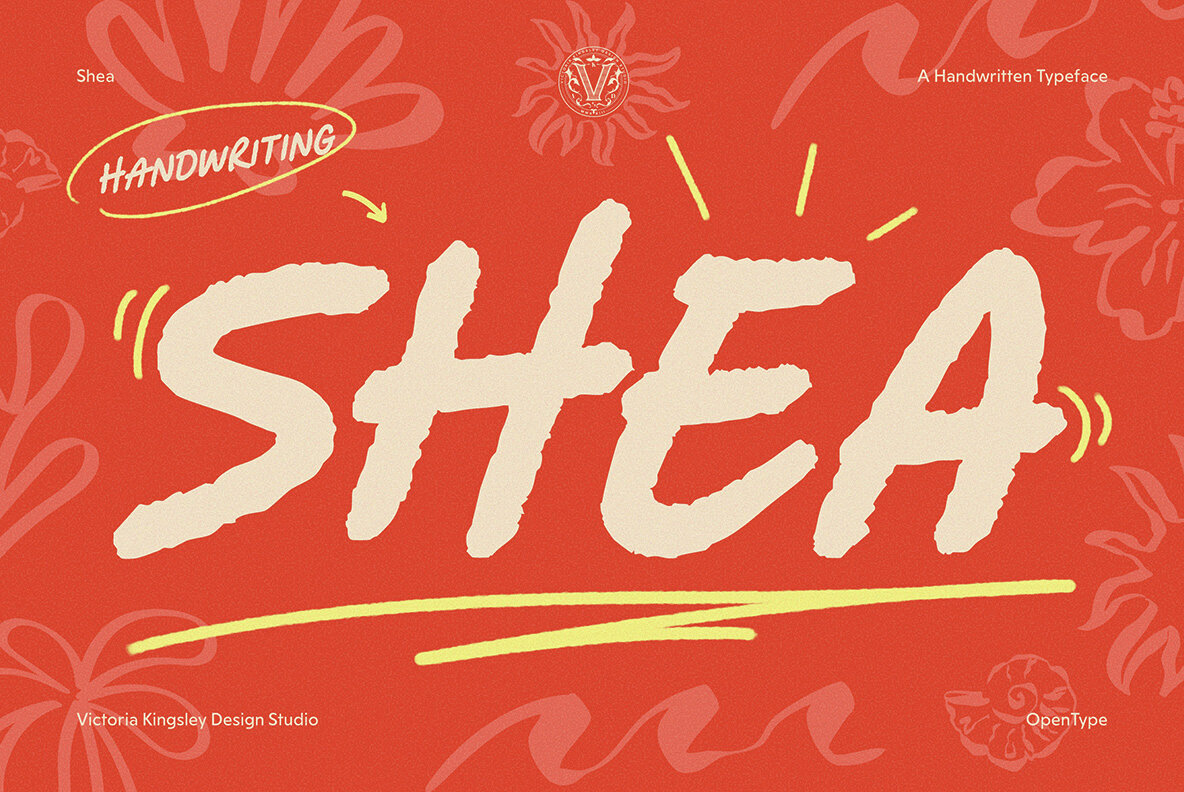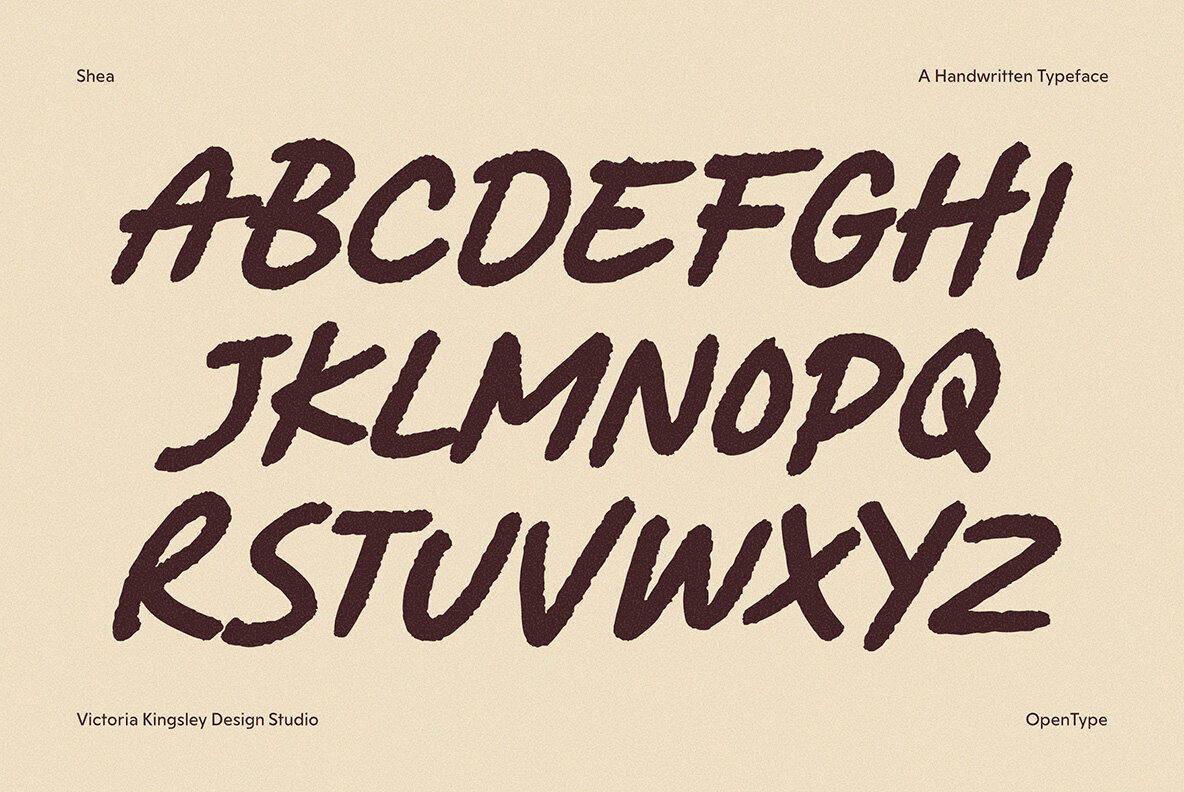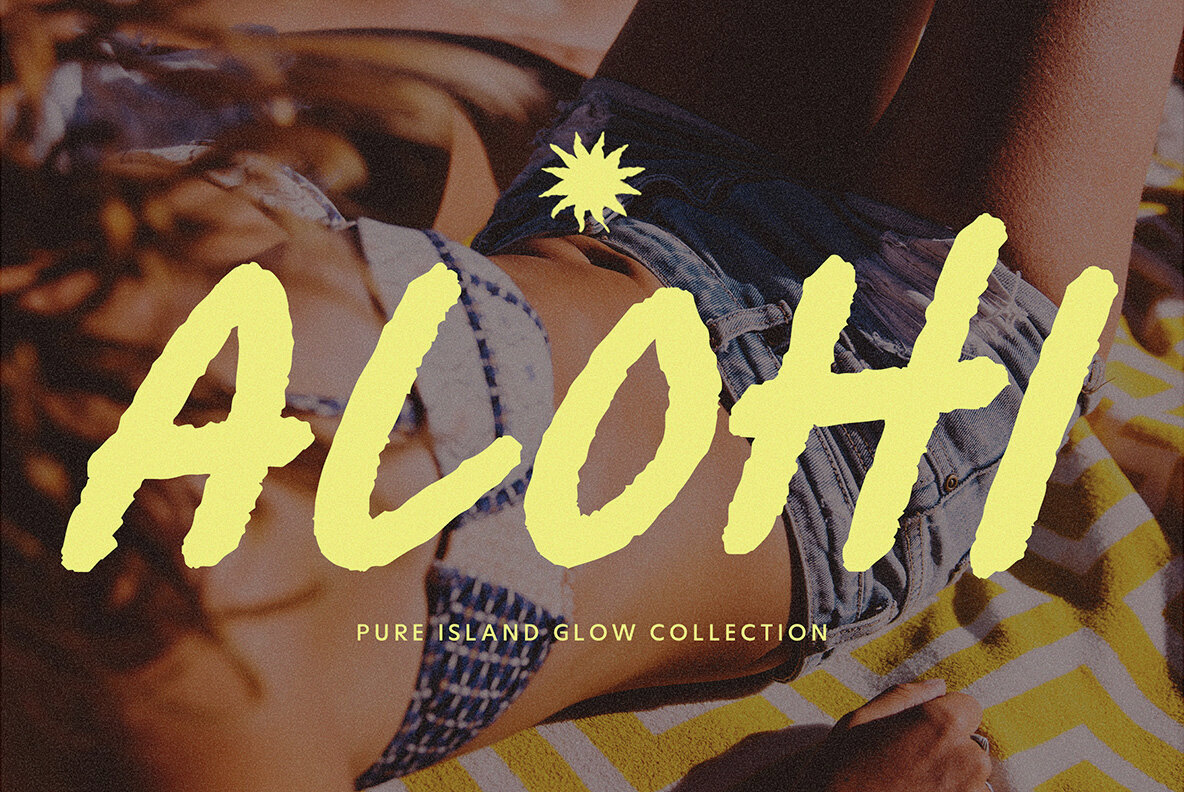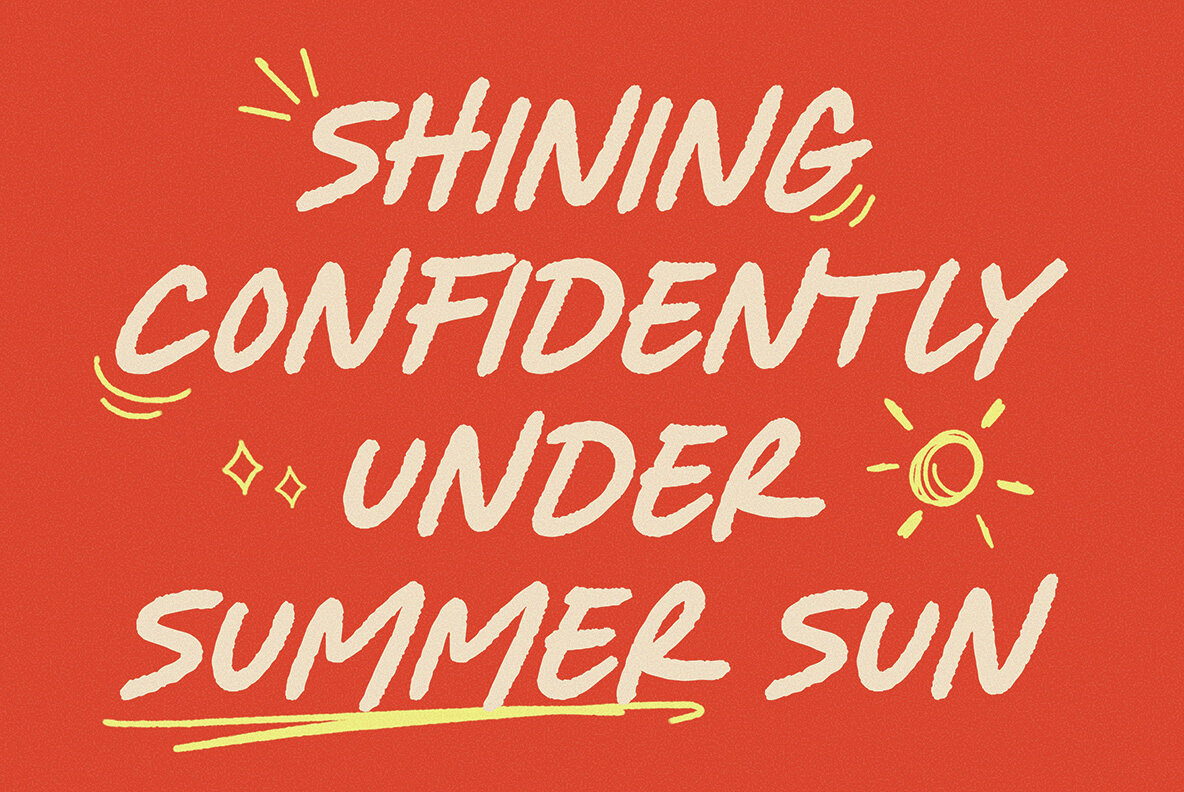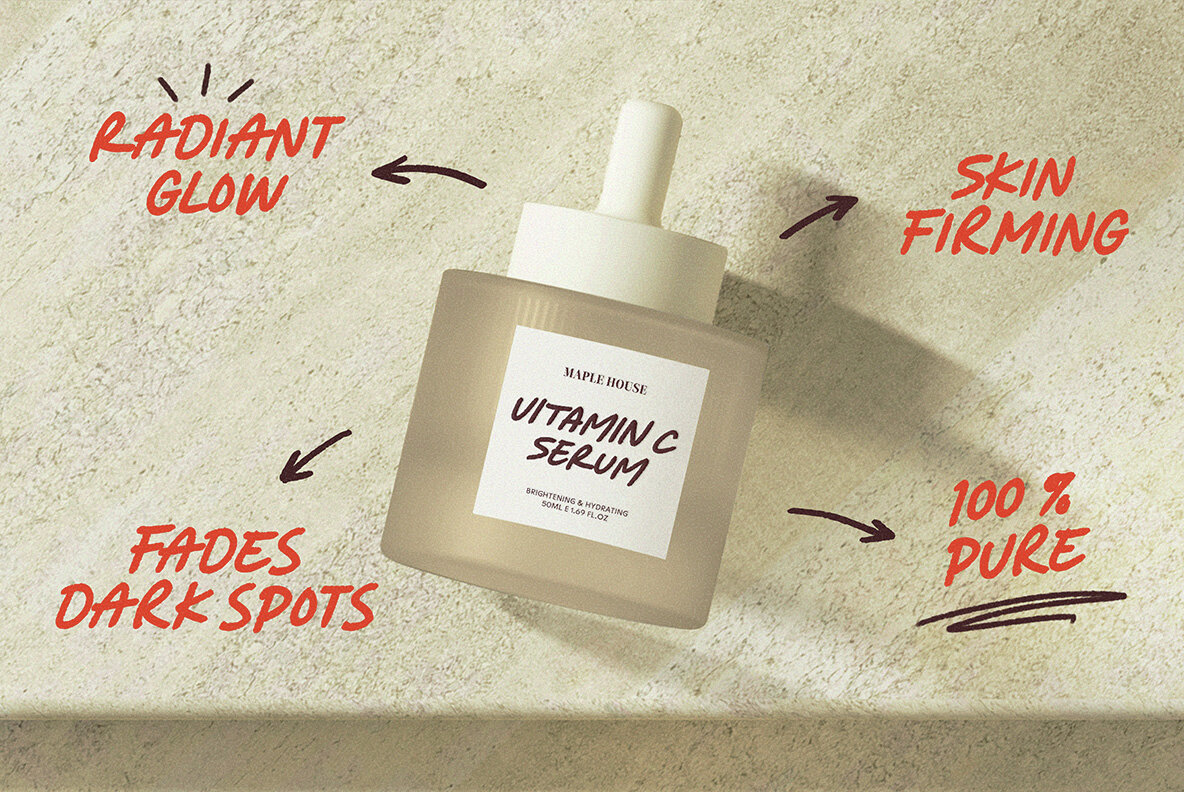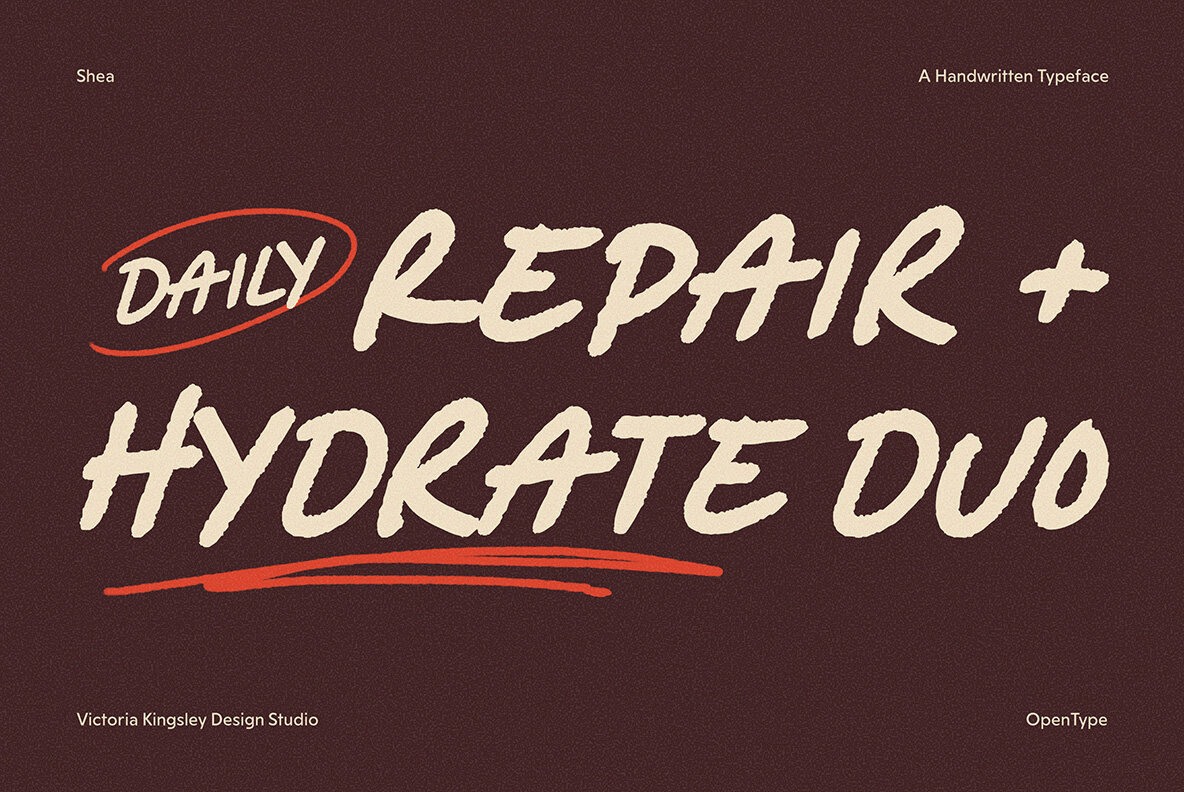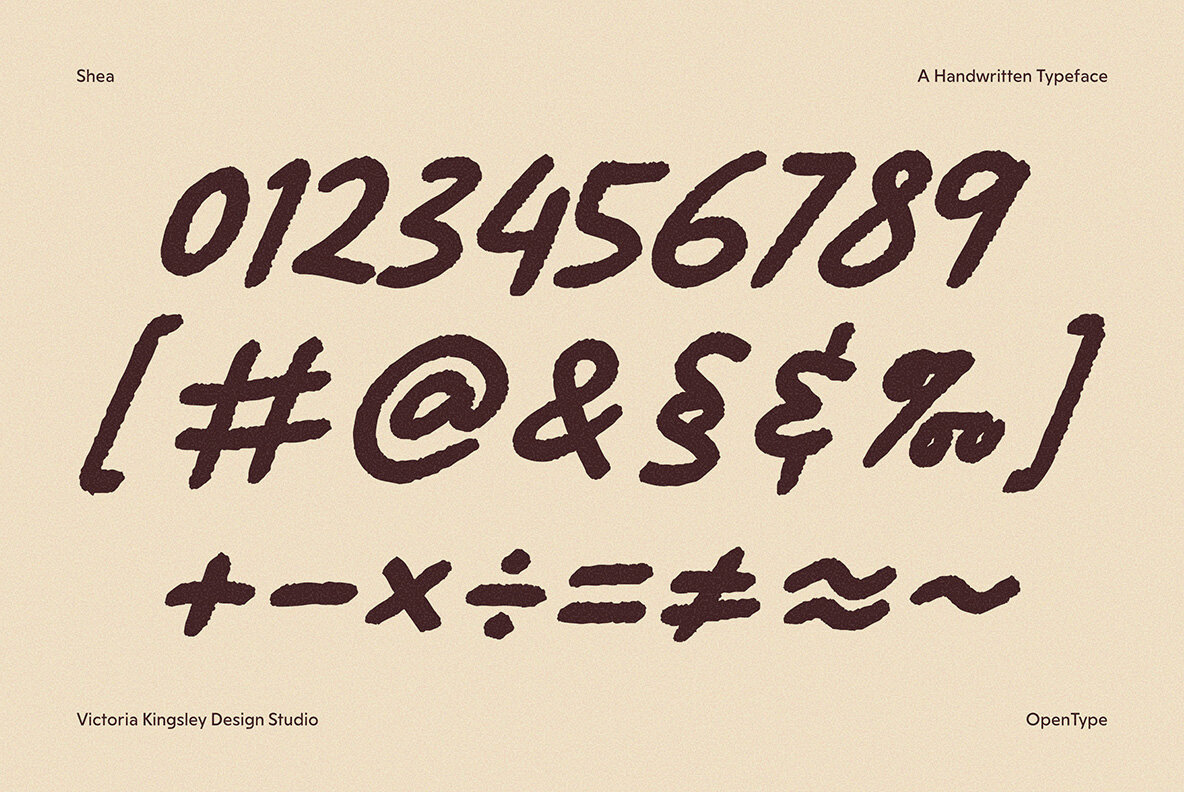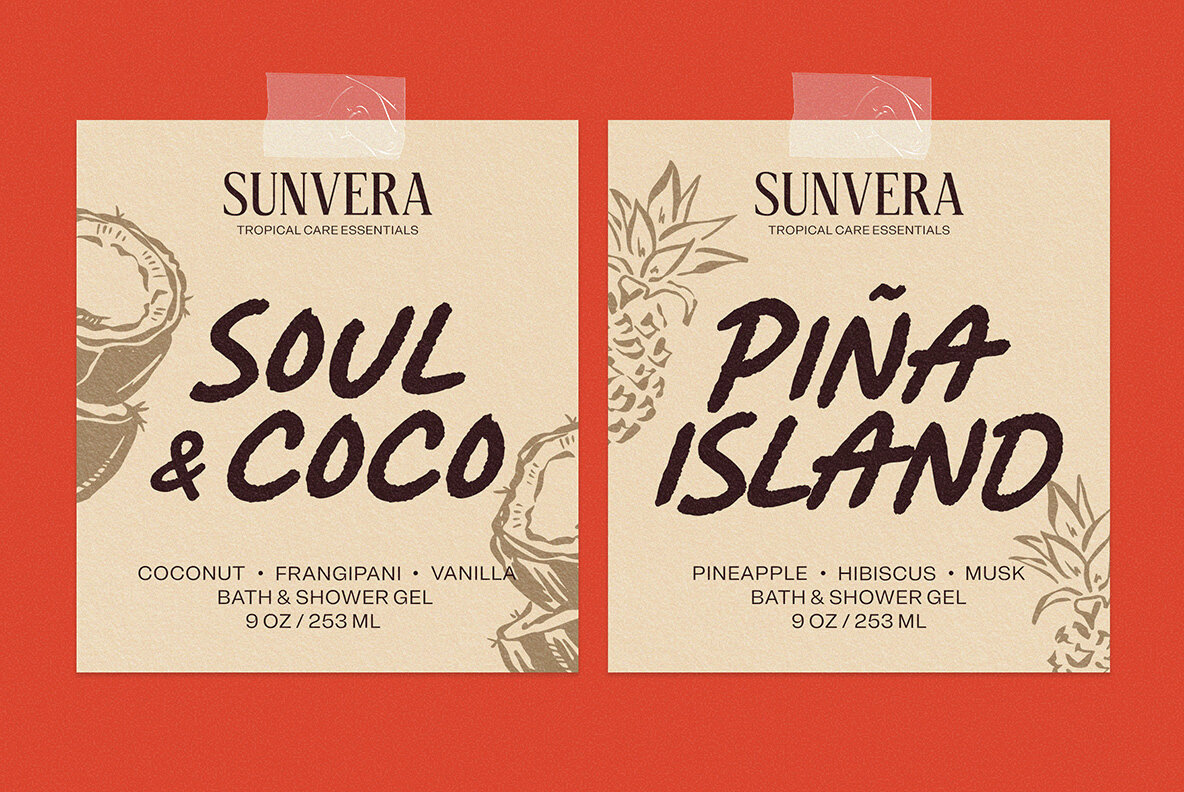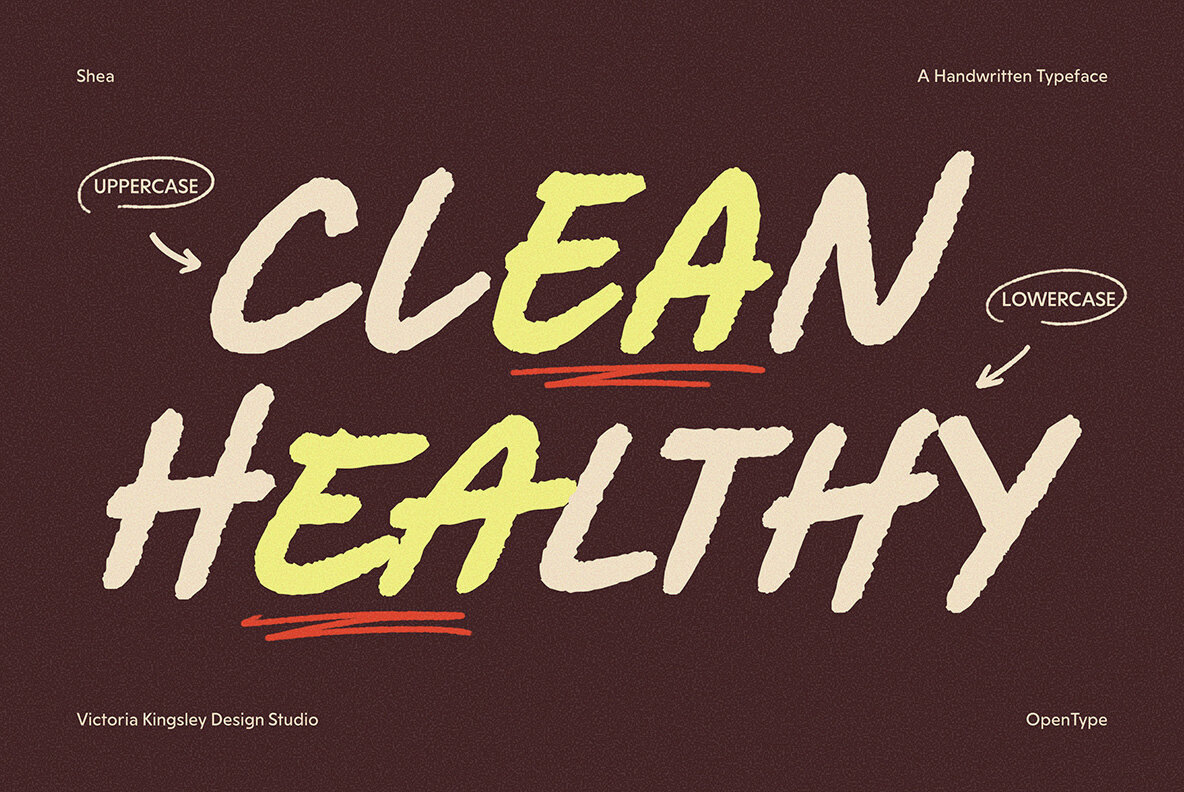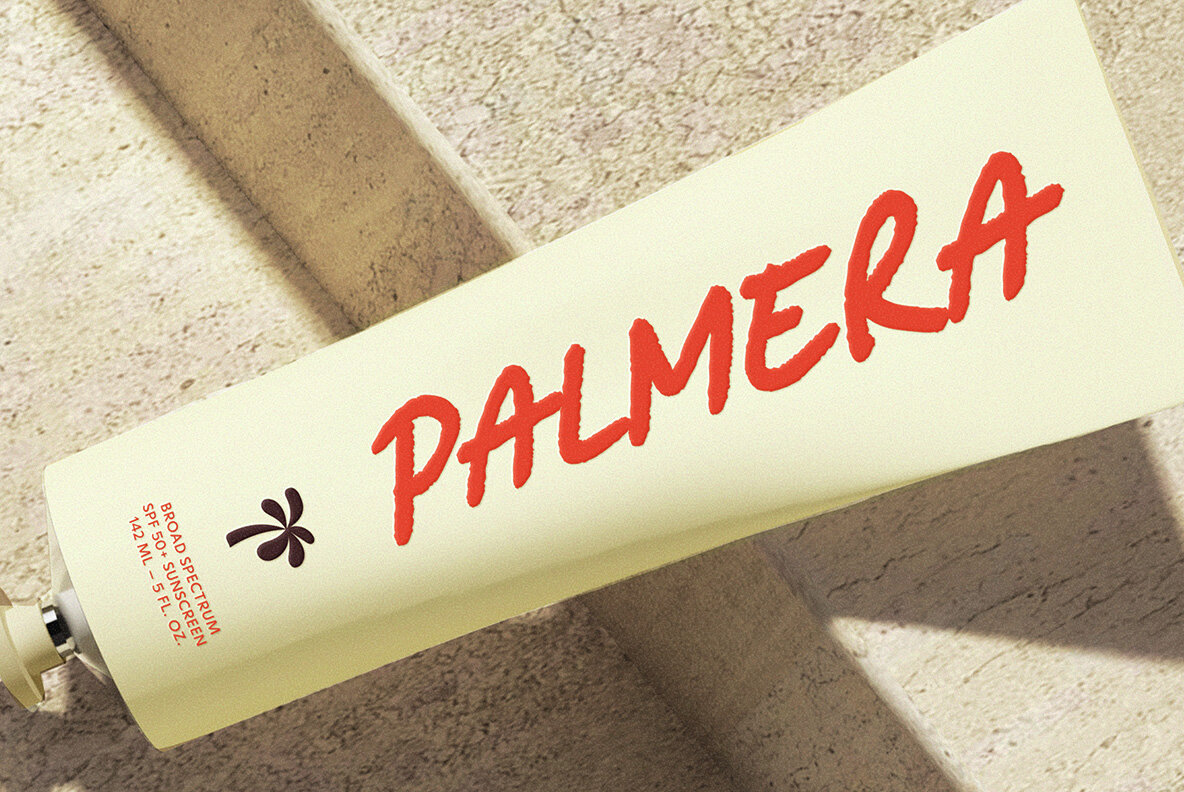
Shea Font
Shea
Shea captures the organic charm of handwriting within a clean, sans-serif framework. Its gentle distressed texture offers the visual nuance of ink on paper, blending breezy informality with a sense of authenticity. With 330 distinctive glyphs in one accessible style, Shea lends a friendly, approachable note to branding, packaging, editorial design, and digital layouts. Its subtle irregularities and smooth legibility make it particularly suitable for projects that emphasize natural aesthetics, wellness, or travel—areas where genuine human touch is appreciated. Shea's unique personality comes through in applications where a curated, hand-drawn look enhances the message without sacrificing clarity. Rooted in the casual styles of journaling, Shea offers a relaxed, modern script that bridges the gap between digital design and handcrafted individuality. It is a compelling choice for designers looking to inject warmth, personality, and distinction across a diverse array of projects.Shea: Handwritten Style Typeface With Warm Texture
Ideal Typesetting Applications
Shea's OpenType Features